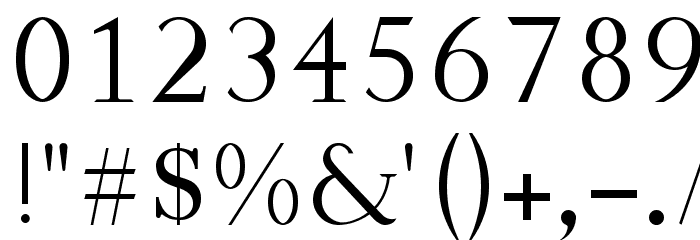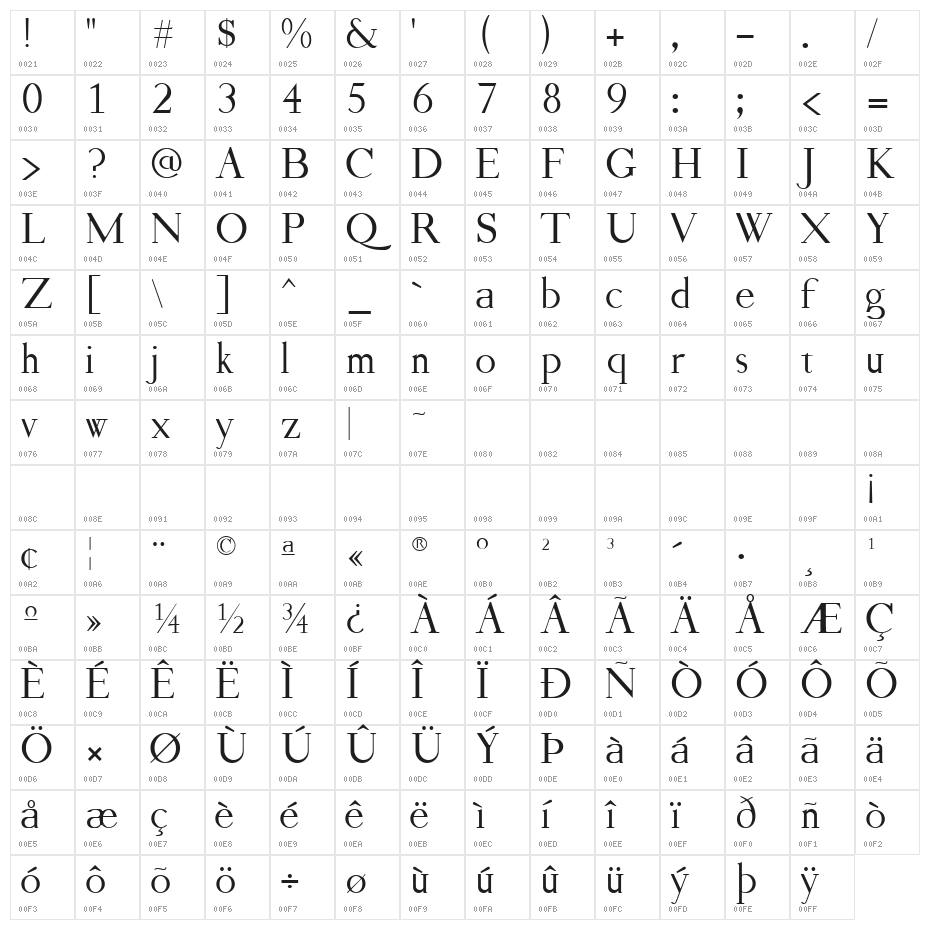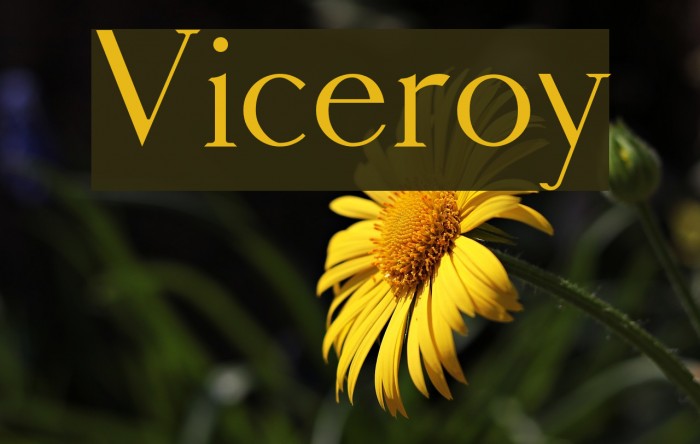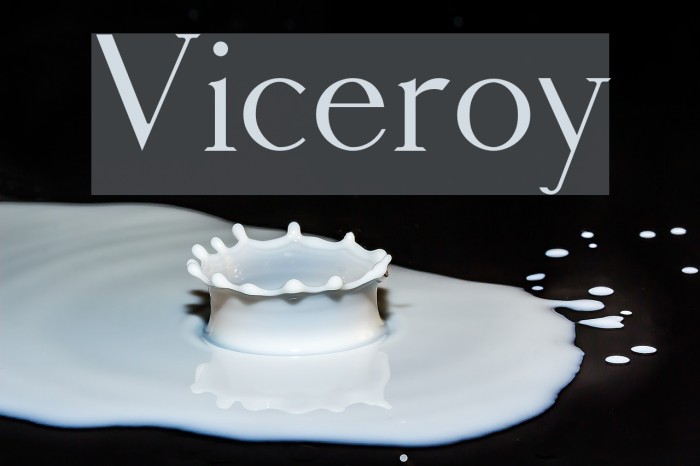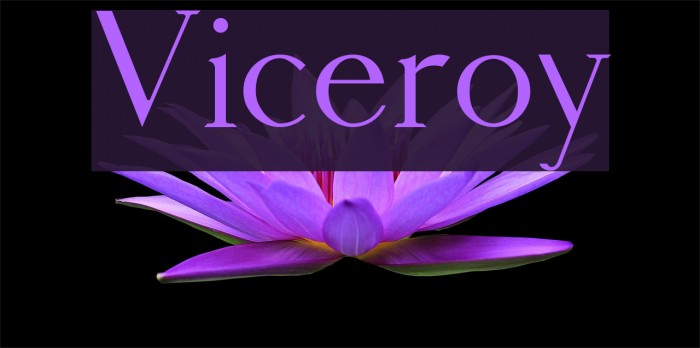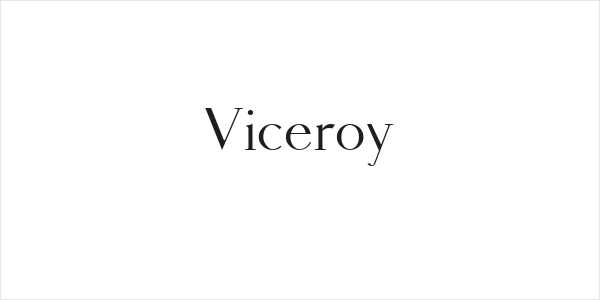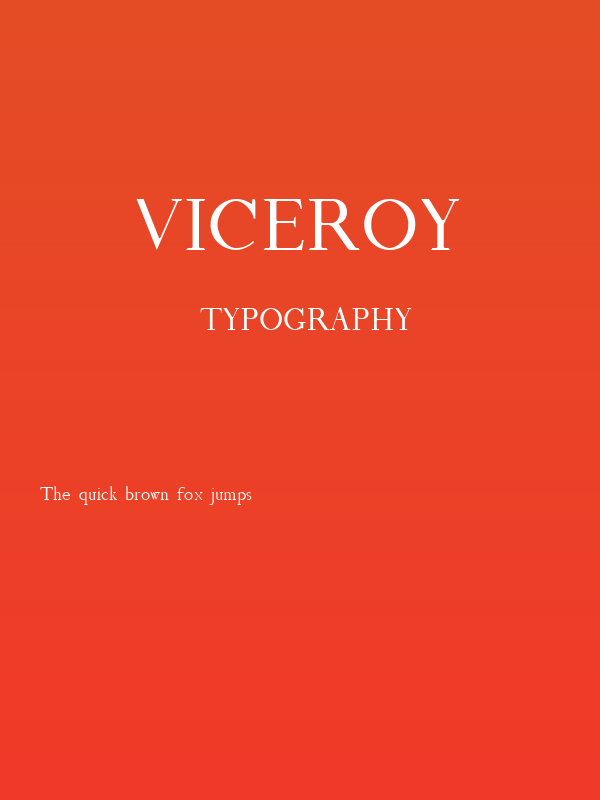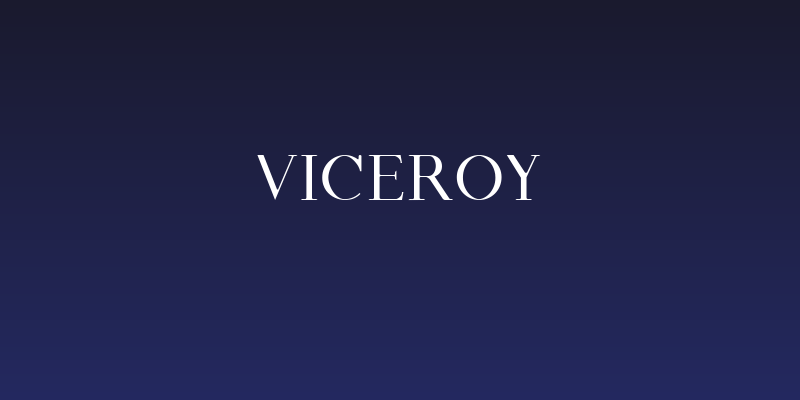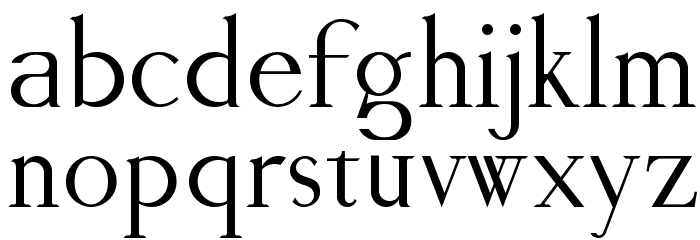
Viceroy Font
Viceroy Description
This font exhibits a classic serif style with elegant and refined strokes. The uppercase letters are characterized by their strong vertical lines and subtle curves, giving them a sophisticated appearance. The lowercase letters maintain a consistent style, with smooth transitions and balanced proportions. The numerals are clear and distinct, ensuring readability. Special characters are well-integrated, maintaining the overall aesthetic of the font. The design is suitable for projects that require a touch of elegance and tradition, while still being versatile enough for modern applications.
| Proposed Projects | Ideal for editorial design, book covers, formal invitations, and branding materials that require a touch of sophistication. |